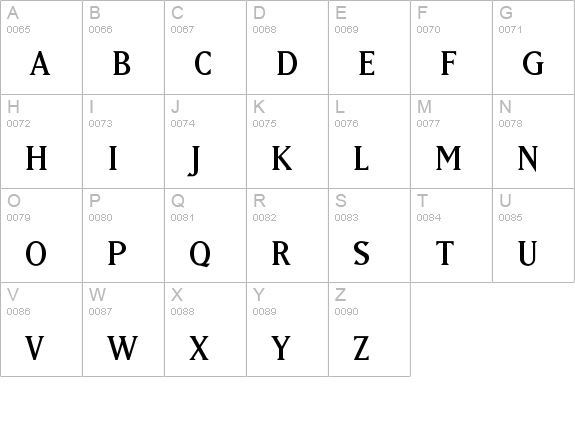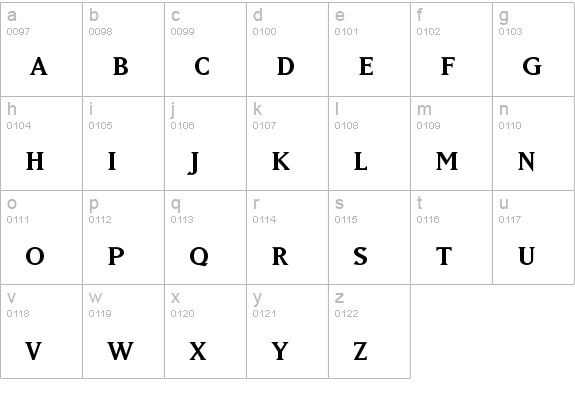
MatrixRegularSmallCaps Font Details
MatrixRegularSmallCaps font is a modern and sleek typeface that combines the classic look of small caps with a contemporary twist. This font is perfect for adding a touch of sophistication to your designs, whether for print or digital media. The clean lines and sharp edges of MatrixRegularSmallCaps font make it highly versatile, suitable for a wide range of projects including branding, editorial design, and more. Its small caps style gives a polished and professional appearance, making it ideal for corporate communications and formal documents. Best of all, MatrixRegularSmallCaps font is available for free download at FontsMarket.com. So, don't hesitate to add this stylish and elegant font to your collection today and elevate your design projects to the next level.